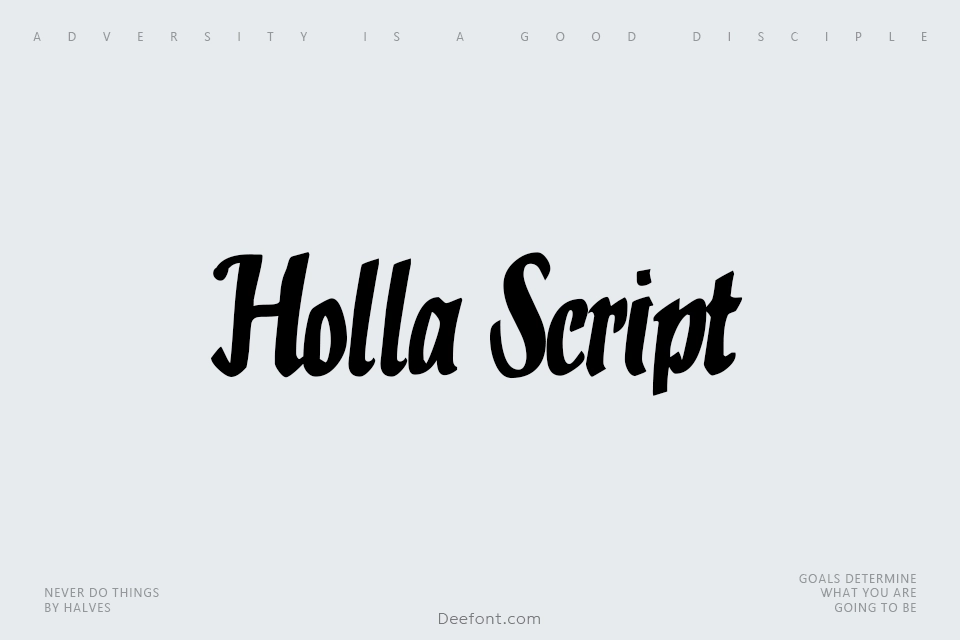
Holla Script Font
Holla Script is a stylish, elegant script font featuring gently curved strokes that deliver a friendly and approachable aesthetic. Created by Dieter Steffmann, this versatile display typeface combines casual sophistication with flowing hand-lettered charm, making it perfect for headlines, branding, stationery, and creative projects that require a touch of playful elegance and distinctive character.